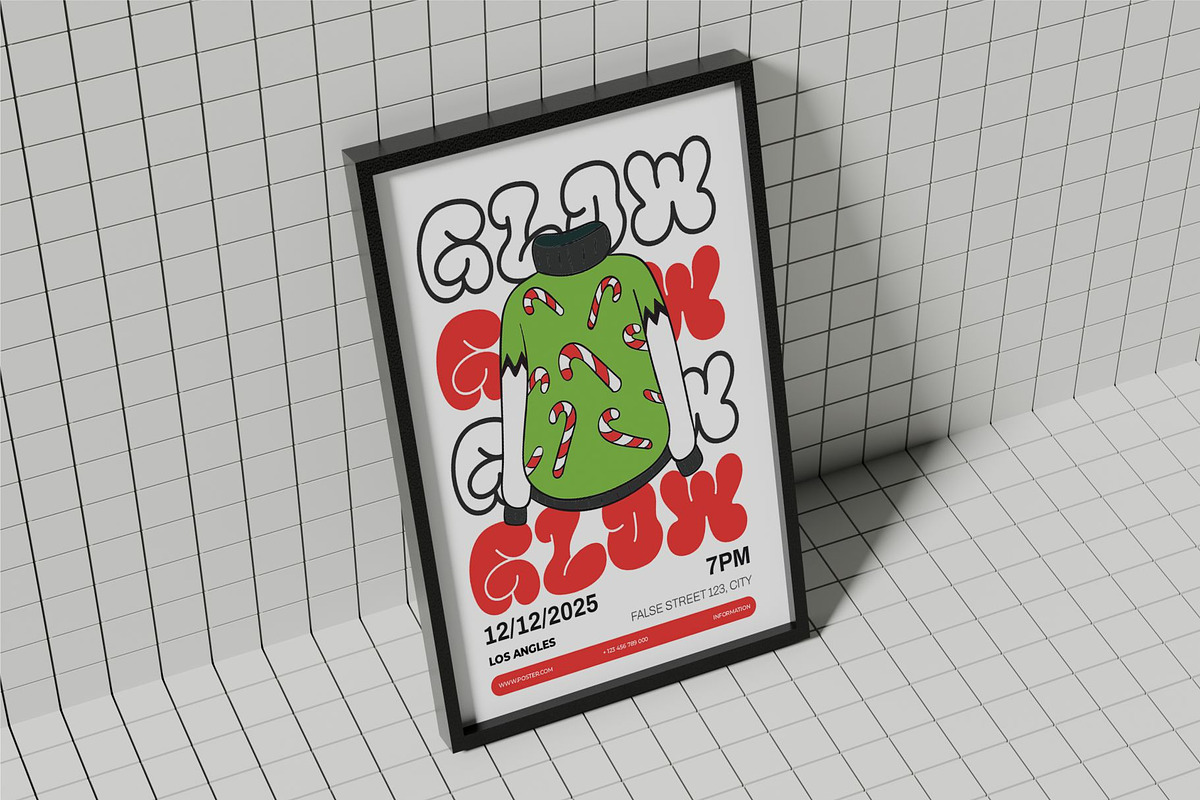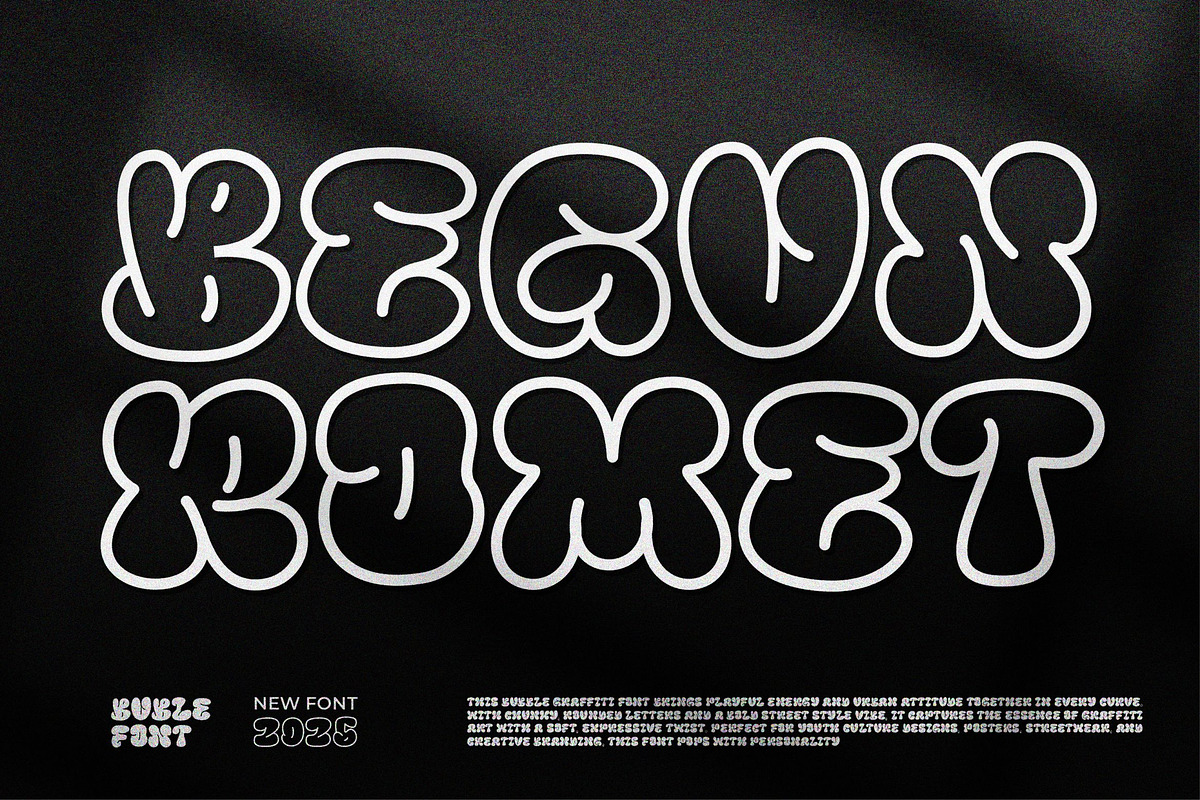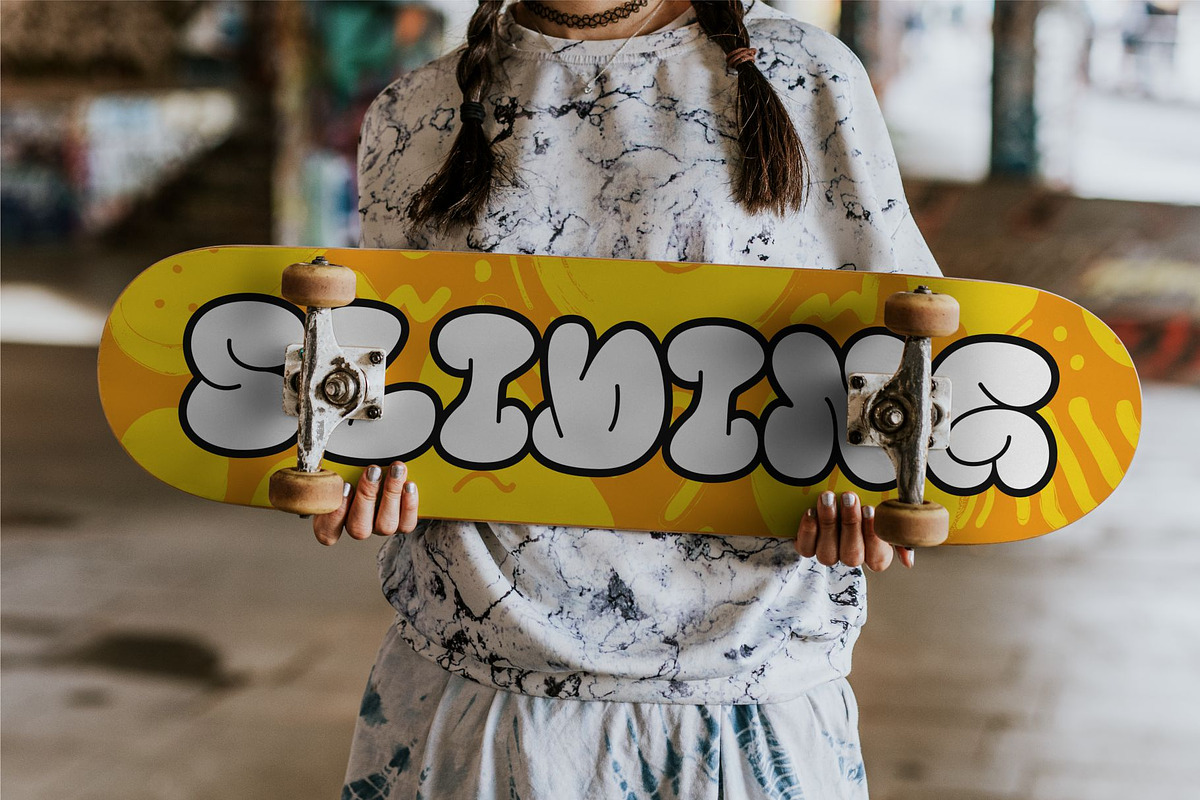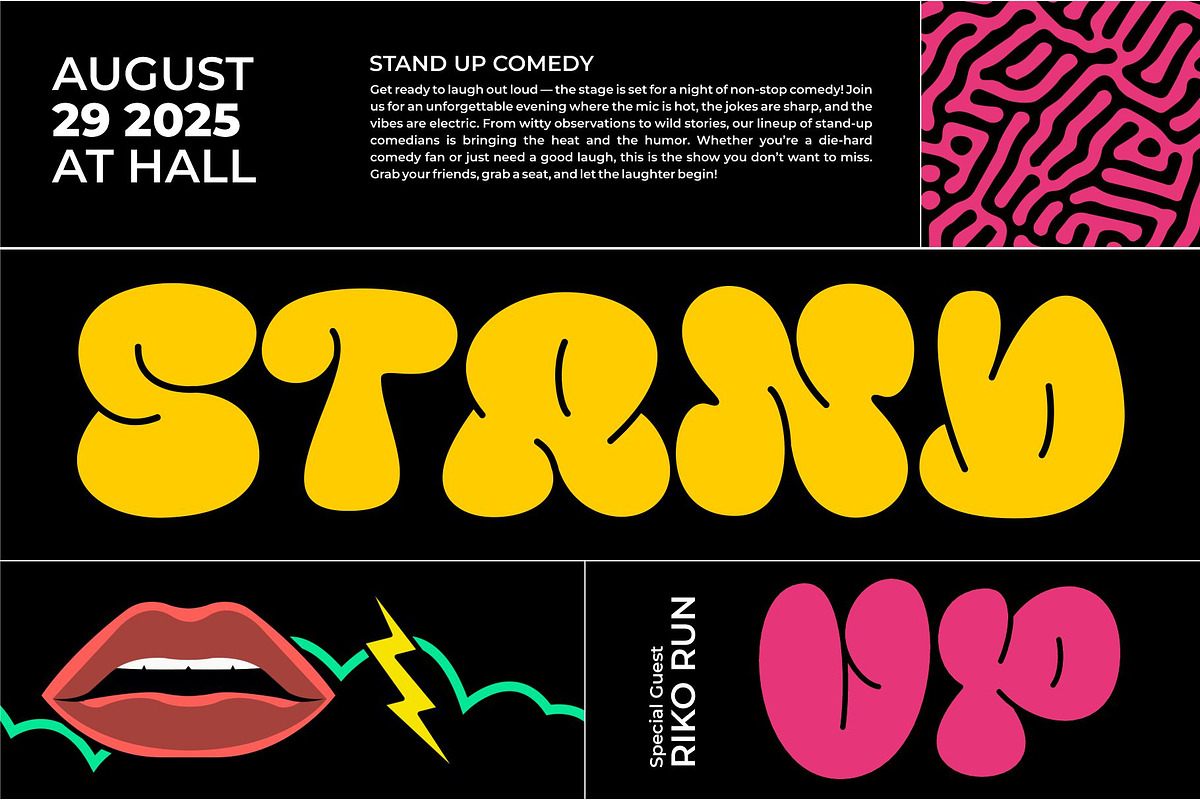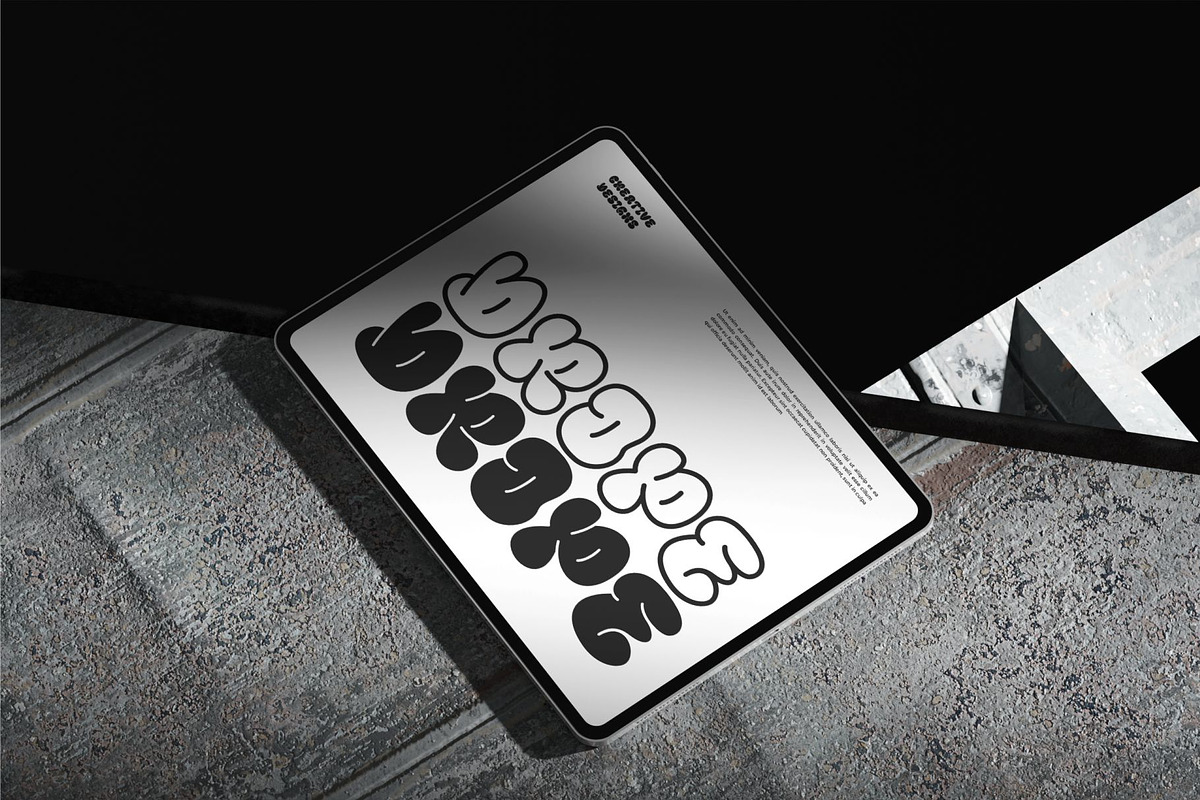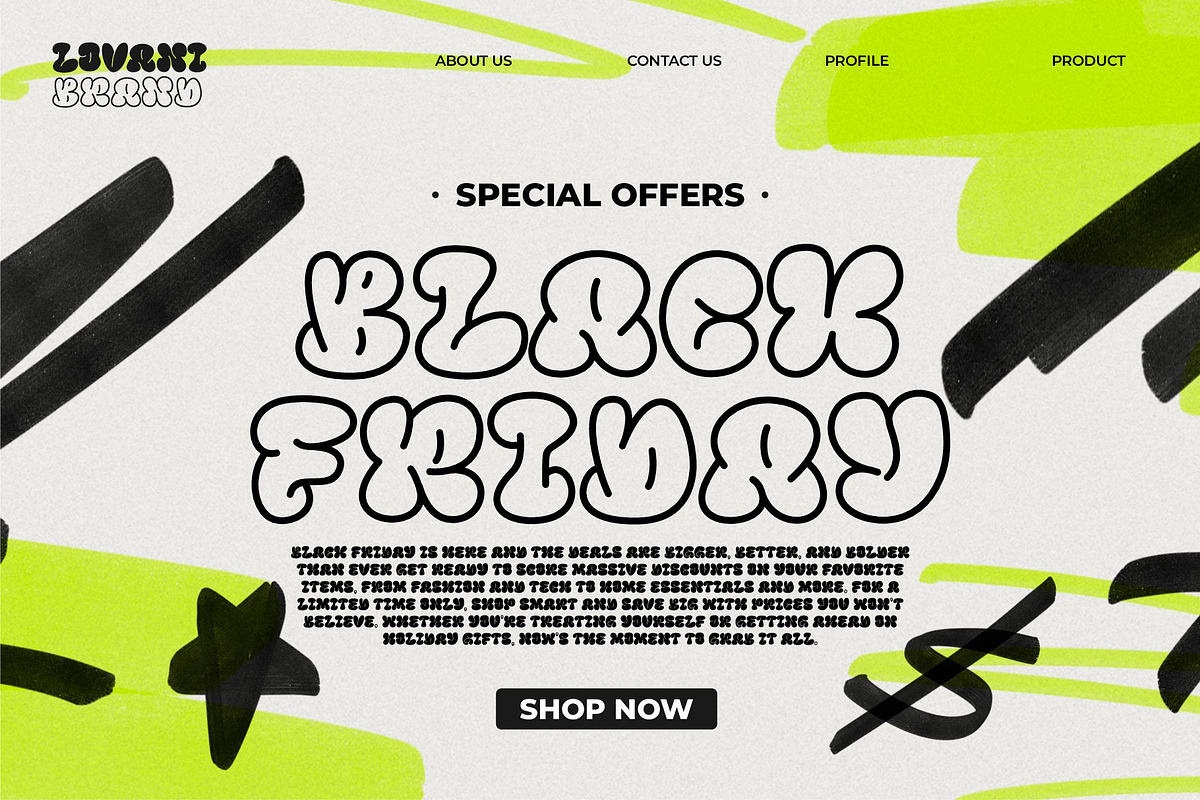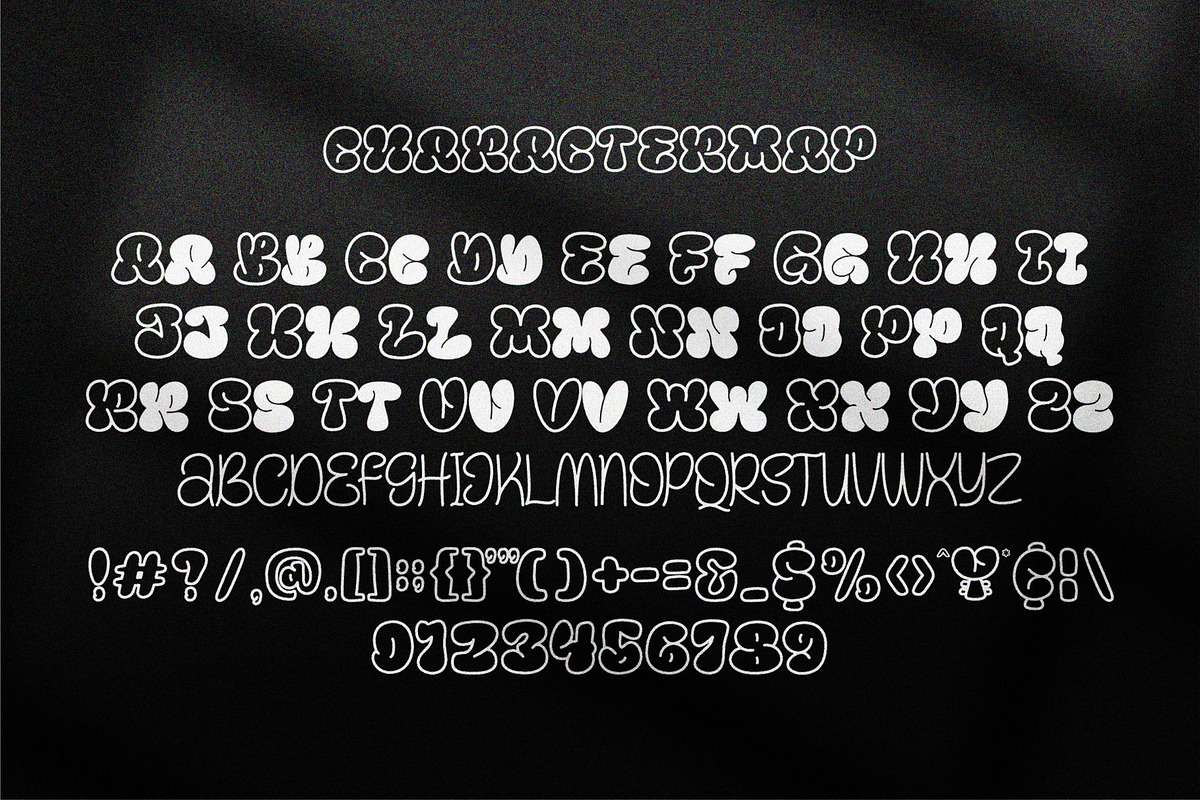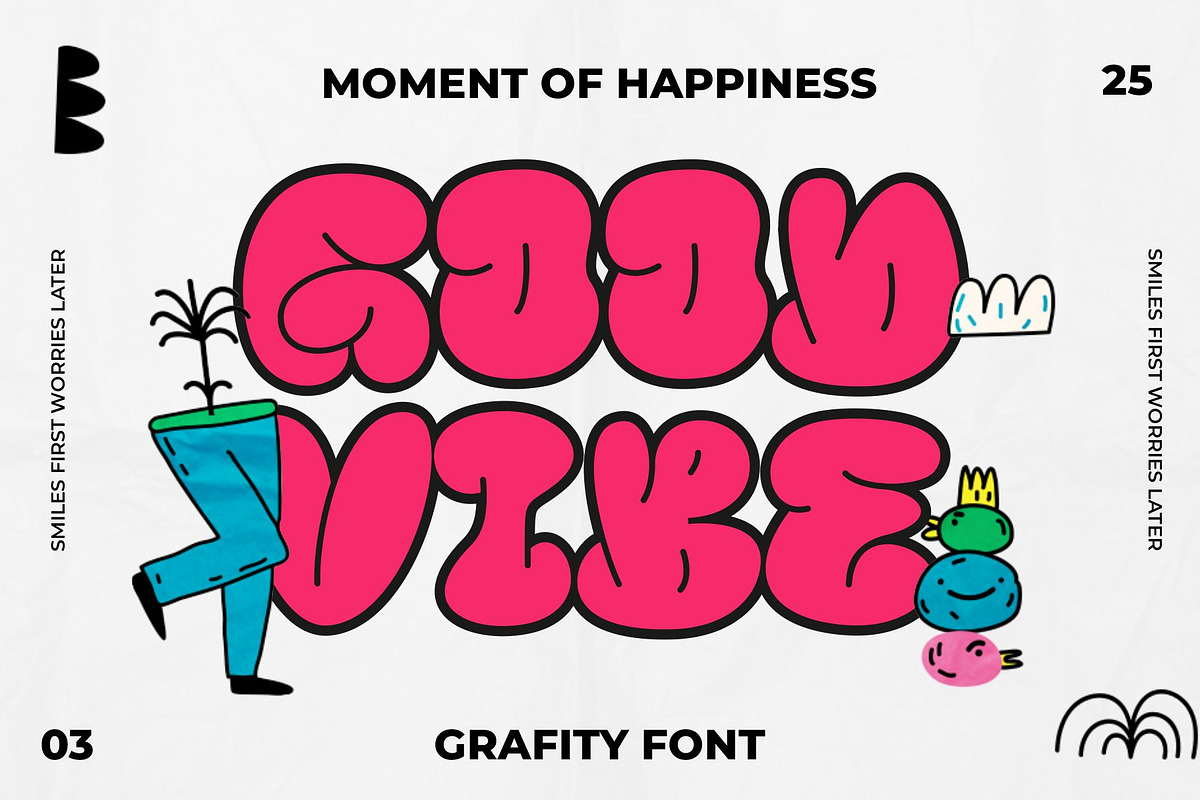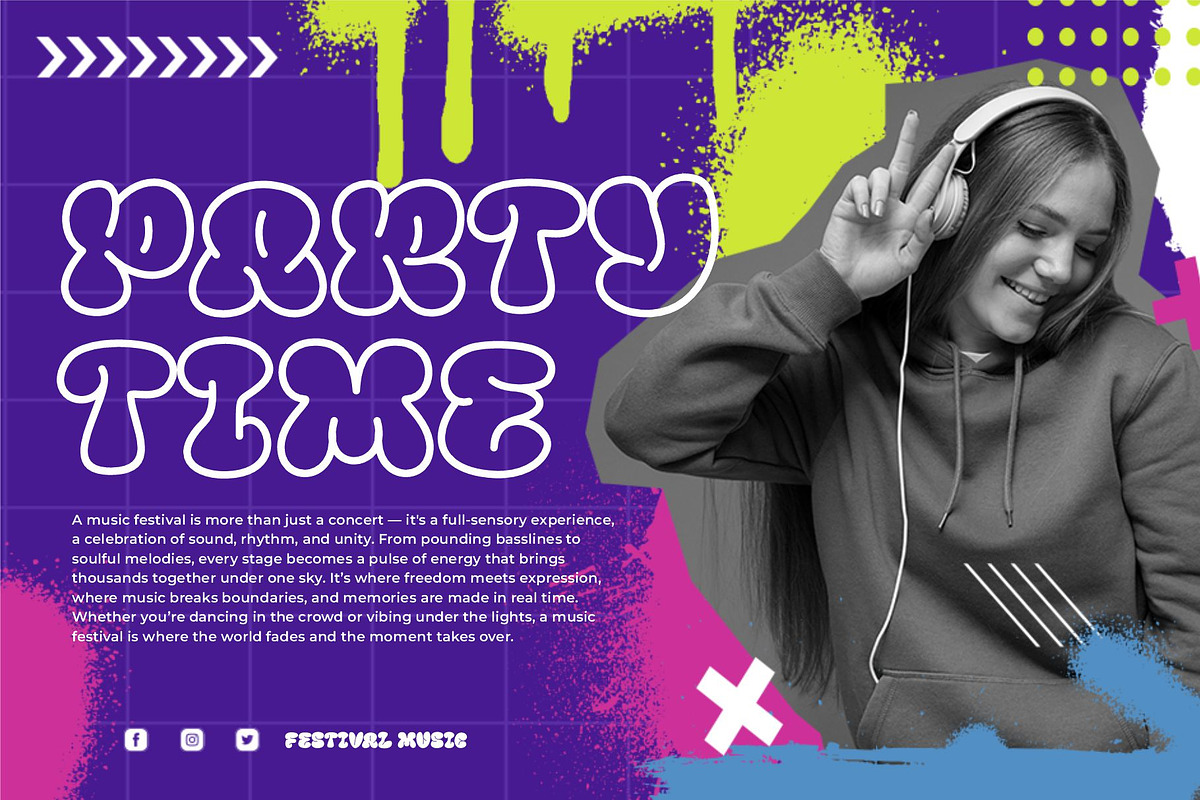
Begun Romet || Bubble Graffiti Font
INTRODUCING
Begun Romet this is bubble graffiti font explodes with personality — playful, bold, and full of street attitude. Its rounded, inflated letters mimic real spray-painted tags, capturing the essence of urban art with a fun, expressive twist. Perfect for streetwear, posters, stickers, album covers, and creative branding, this font brings energy and youth to every design. Whether you’re shouting a name or tagging a vibe, this font makes your message pop loud and proud. What you'll get :
- Smallcaps
- Stylistic alternates